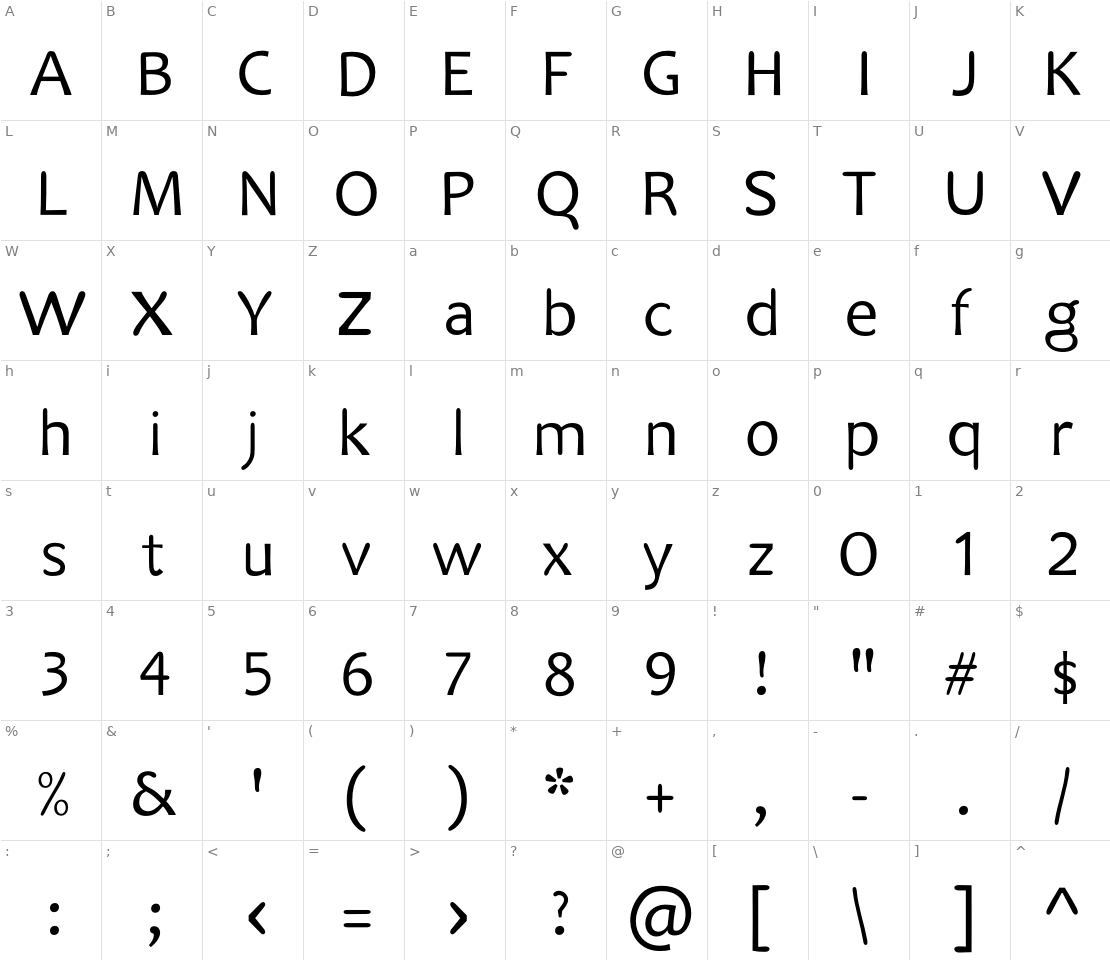
Aquarion
by Jean Catalano
Aquarion is a light humanist sans-serif by Jean Catalano with clean, open letterforms and a neutral tone that stays out of the way. Its readable proportions and subtle warmth make it a solid body text face, comfortable in longer passages where you need legibility without sterility. The humanist touches keep it from feeling purely mechanical, giving it just enough character to hold interest at smaller sizes.